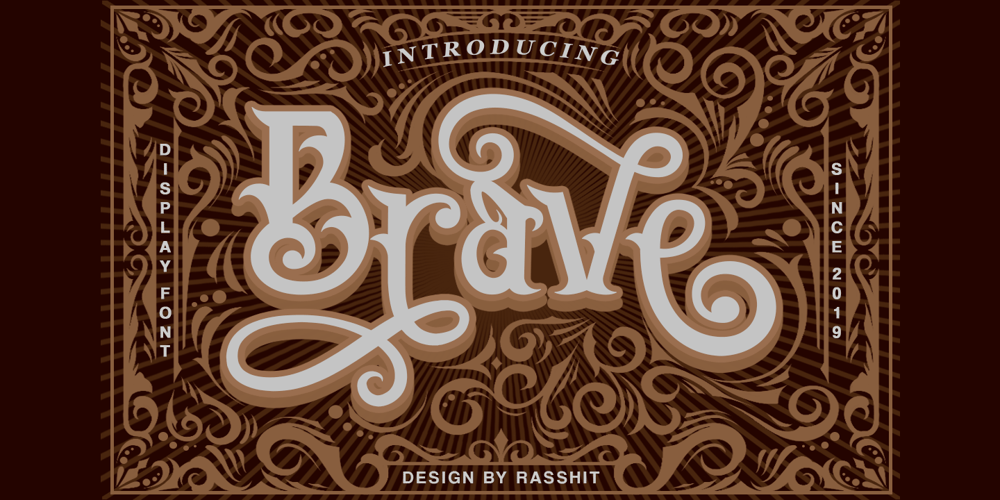
Brave Vintage Font Family was designed by Rasyid Annas and published by Rassht.dsgn. Brave Vintage contains 2 styles and family package options. Brave is a stunning and fun vintage display font with a cool feel. It will turn any Western-themed design project into a true standout. This is suitable for your retro vintage design and this font is also suitable for posters, logos, t-shirts, etc.